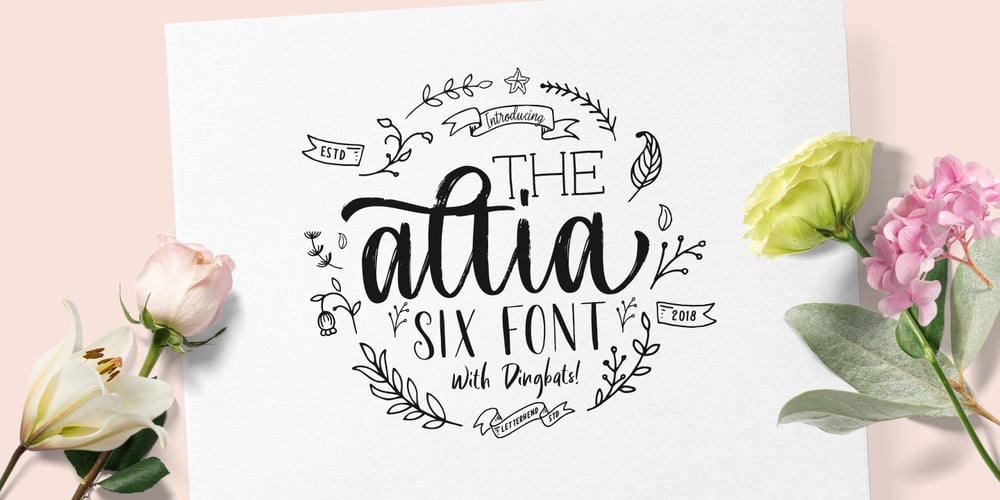
LS Altia
LS Altia font
LS Altia Font Family was designed by Hendry Juanda and published by Letterhend. LS Altia contains 7 styles and family package options. Introducing Altia Hand Lettering Tool Kit, Yes it is a Tool Kit. The reason why we named it as a Tool Kit is because you will get tons of item in one product! This product will contain 7 fonts. This product will provide anything you need to create a lovely quotes and logo. Just mix and match the fonts and then you can get a beautiful lettering that you can use in any media you want! Very suitable for wedding invitation, greeting cards, merchandise, apparel, poster / print design, etc. All the fonts is also support multilingual.